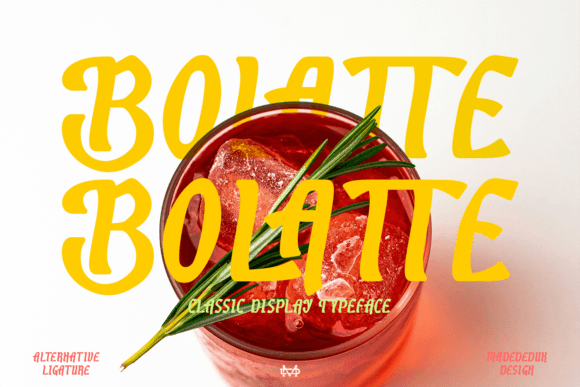
The Bolatte Font: A Whimsical Design Delight
I’ll never forget the time I was working on a design project for a children’s book, and I just couldn’t find the right font to match the playful tone of the story. The client wanted something that would appeal to kids, but still look professional and polished. That’s when I stumbled upon the Bolatte font, and it instantly brightened up my design. In this article, I’ll share my experience with this charming display font, and show you how to make the most of its unique features.
An Honest Review of Bolatte Font
So, what makes Bolatte font so special? Here are some things I love about it:
- ✨ Cute and charming: Bolatte font has a whimsical, quirky vibe that’s perfect for designs that need a playful touch.
- ✅ Highly legible: Despite its decorative nature, Bolatte font is surprisingly easy to read, even in smaller sizes.
- 💫 Versatile: This font works well for a wide range of design projects, from children’s books to social media graphics.
Of course, no font is perfect, and Bolatte has a few small quirks:
- 🤔 Limited use in formal designs: Bolatte font is best suited for creative, playful projects. It might not be the best choice for more formal designs, like corporate branding or business reports.
- ⚠️ Some letters may require adjustment: Depending on the word or phrase, some letters may need to be adjusted to ensure proper spacing and alignment.
One of the best things about Bolatte font is its OpenType features and glyphs. These allow you to customize the font to suit your design needs. For example, you can use stylistic alternates to change the look of certain letters or glyphs to add more visual interest to your text.
The Story Behind Bolatte Font
Bolatte font was designed by a talented typographer who wanted to create a font that would bring a smile to people’s faces. Inspired by the whimsical world of children’s books and playful design, Bolatte font is the perfect choice for designers who want to add a touch of personality to their work.
Q: What is Bolatte font best suited for?
A: Bolatte font is perfect for creative, playful designs, such as children’s books, social media graphics, and posters.
Q: Is Bolatte font easy to read?
A: Yes, Bolatte font is surprisingly easy to read, even in smaller sizes.